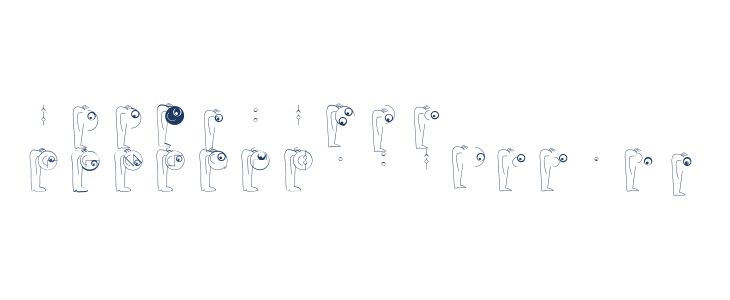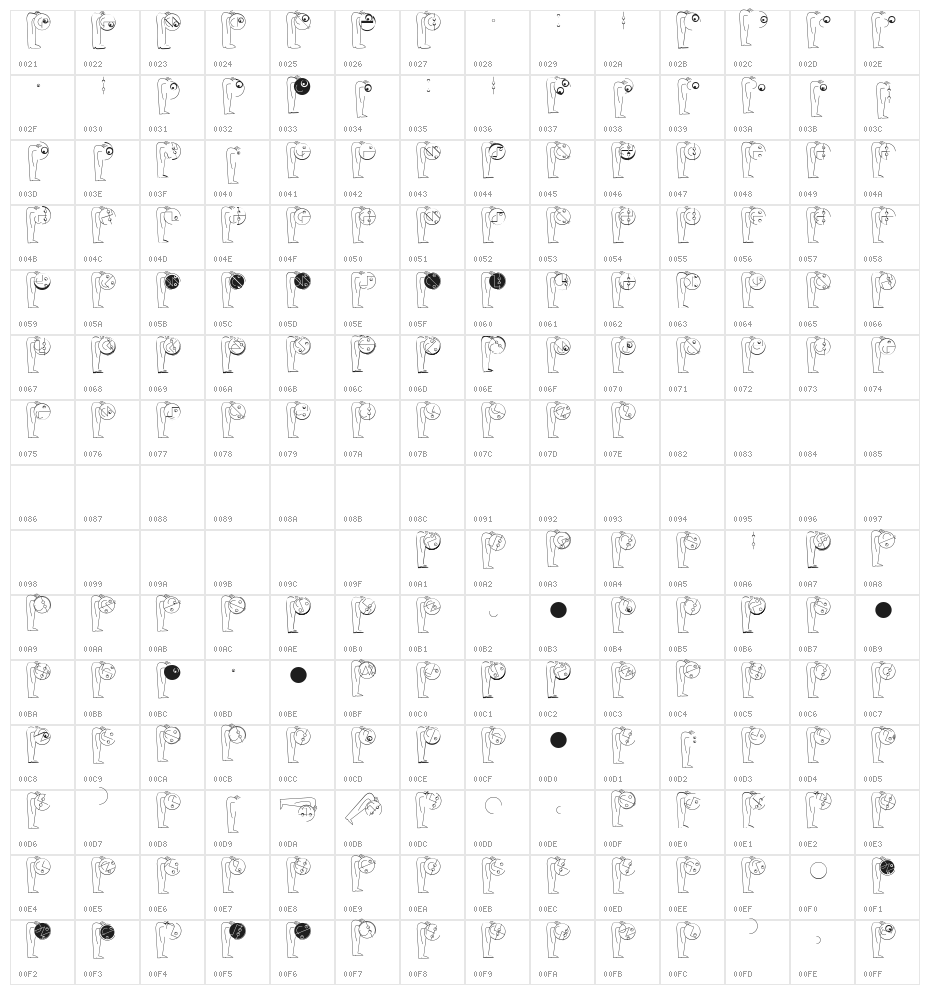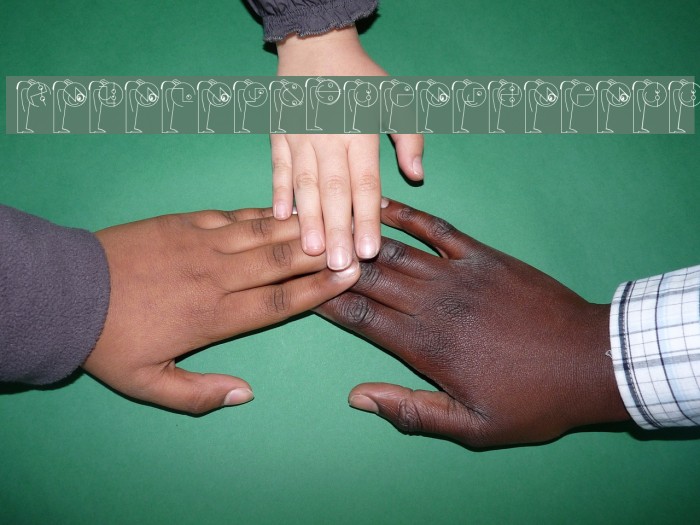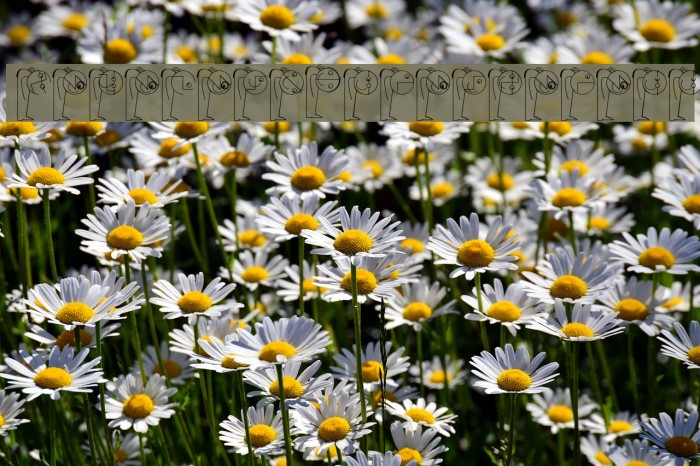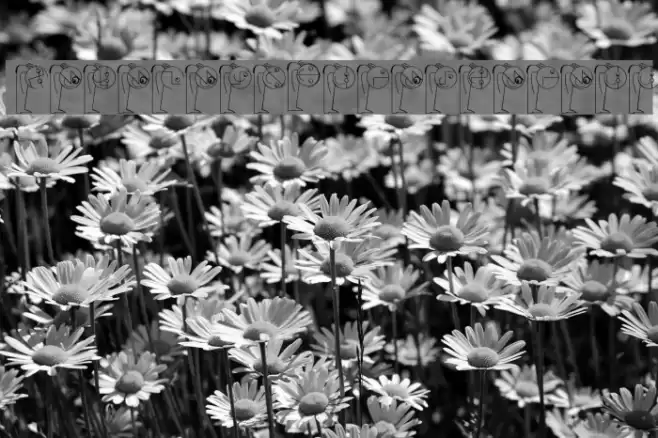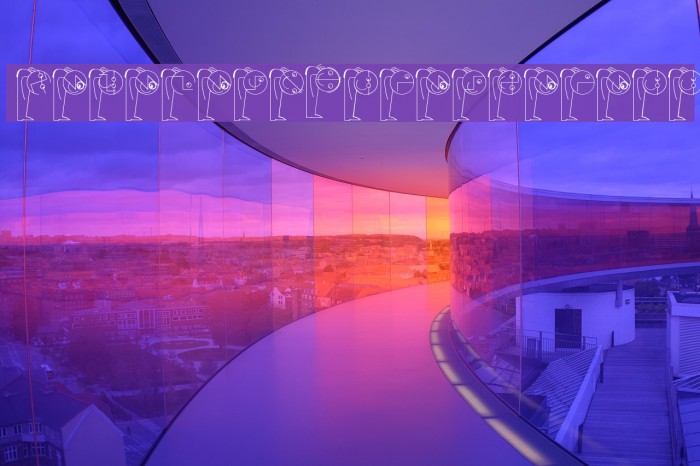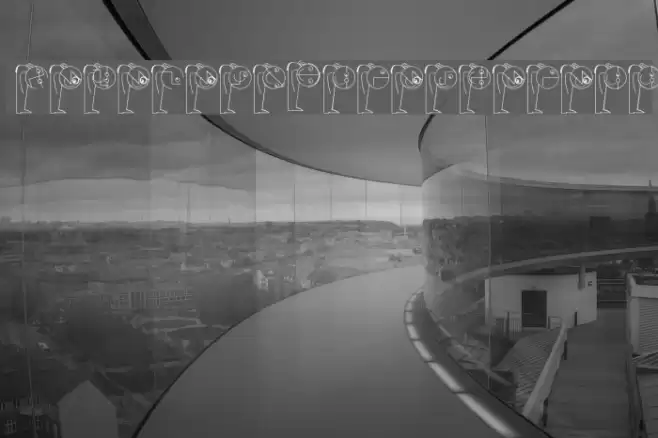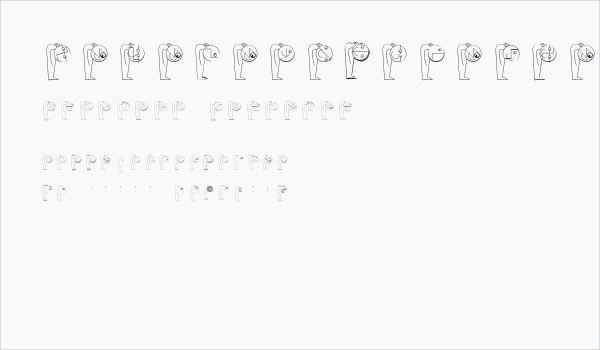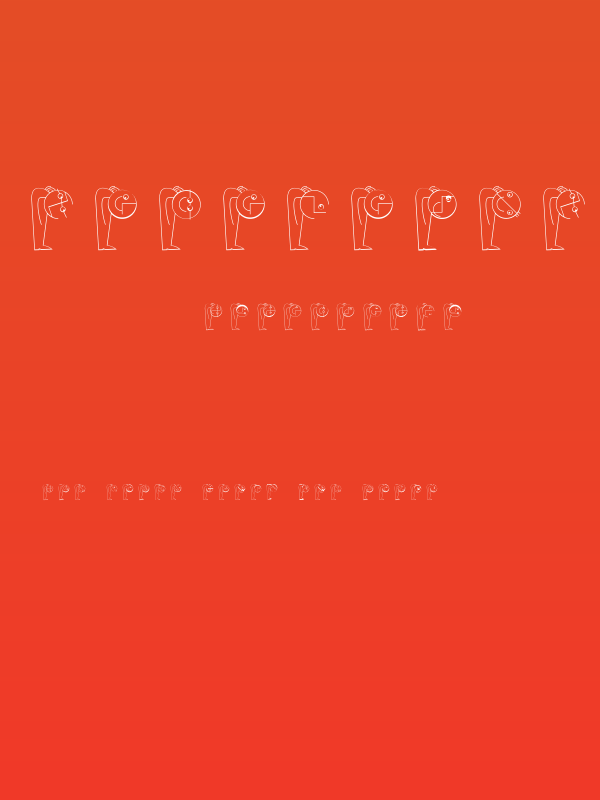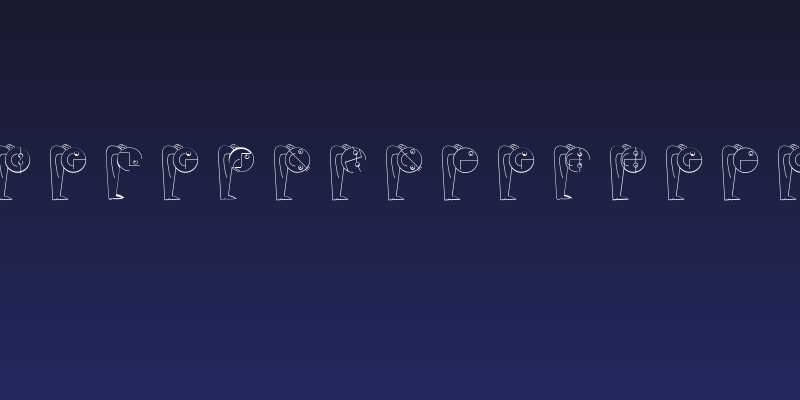
A highly stylized, illustrative font where each character is represented by a minimalist, cartoon-like figure bowing, with subtle variations to distinguish letters, numbers, and symbols. The design uses clean, thin lines and playful, expressive forms, making each glyph appear as a unique character in a consistent pose.
| Overall Style | Playful, Illustrative, Modern |
| Use Case | Logos, Posters, Branding, Educational Materials |
| Proposed Projects | Children's branding, playful logos, creative posters, educational materials, character-driven campaigns. |